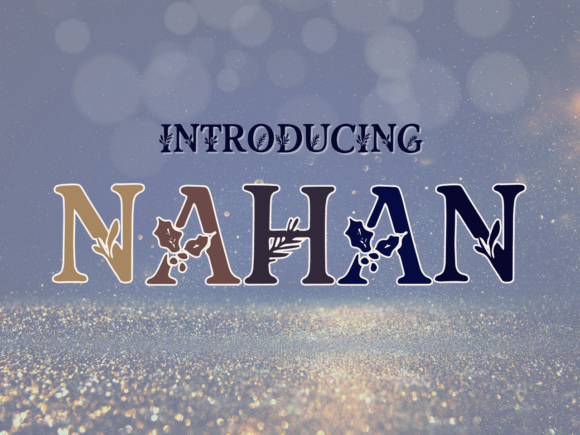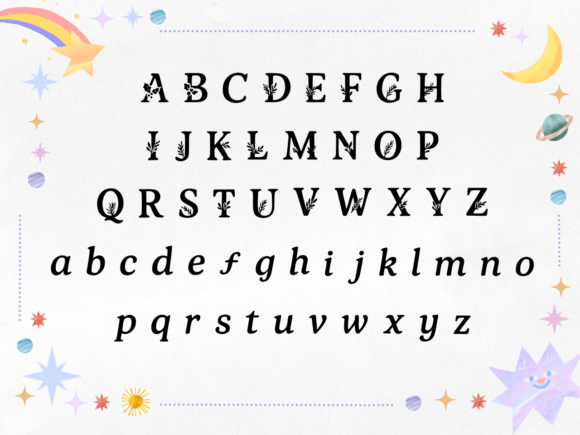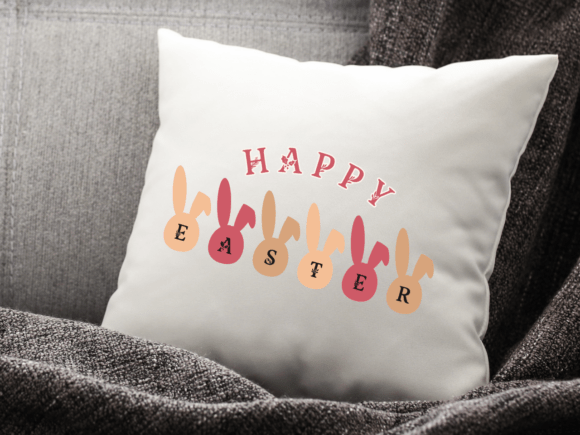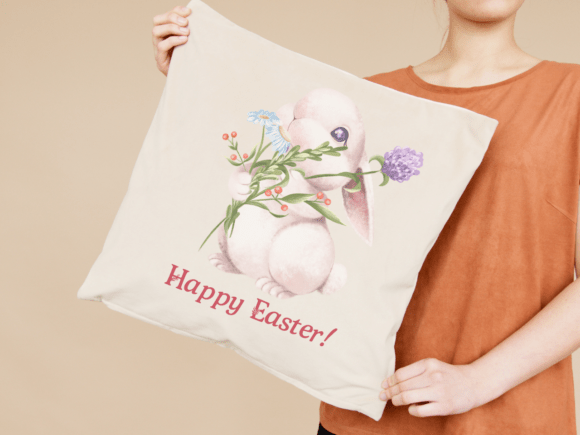
Nahan Font
About the Nahan Font
Experience the unique personality of Nahan Font, a font designed for impact. Nahan is an organic and beautiful font, featuring lovely ornaments. No matter the topic, this font will be an incredible asset to your fonts’ library, as it has the potential to elevate any creation.
Nahan’s organic forms and decorative elements make it ideal for headlines, logos, short-form text in invitations or certificates, and packaging design where a touch of elegance is desired. Its ornate nature, however, makes it unsuitable for body copy or extended reading; legibility suffers at smaller sizes. Avoid using it in user interfaces or situations requiring high readability.
The font possesses a sophisticated, slightly romantic personality. It pairs well with clean sans-serif fonts like Montserrat or Open Sans for a balanced contrast, or with a classic serif such as Garamond or Didot for a more traditional feel. For a more playful approach, consider pairing it with a script font like Allura, but use it sparingly to maintain visual hierarchy.
Brands emphasizing handcrafted quality, vintage aesthetics, or luxury goods would find Nahan particularly fitting. Its charm is best showcased in applications that allow its decorative details to shine.
Nahan Font Usage Examples
Nahan Font Example